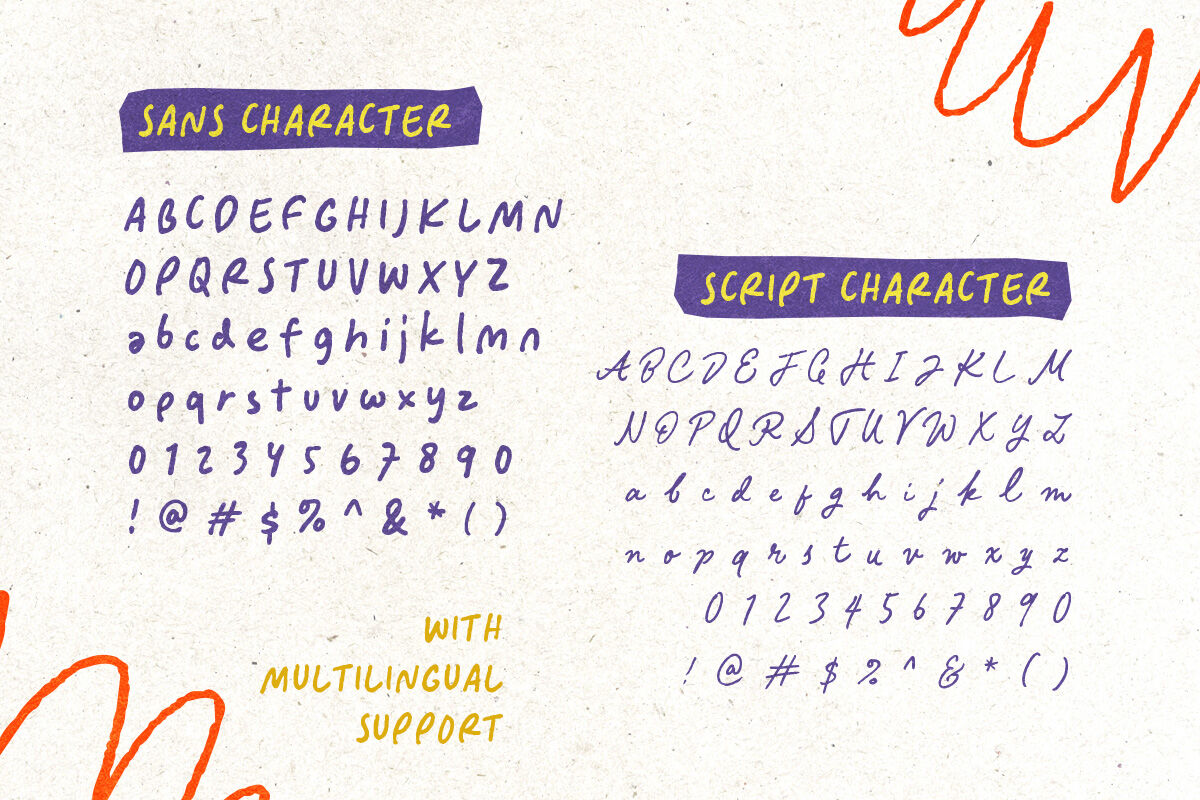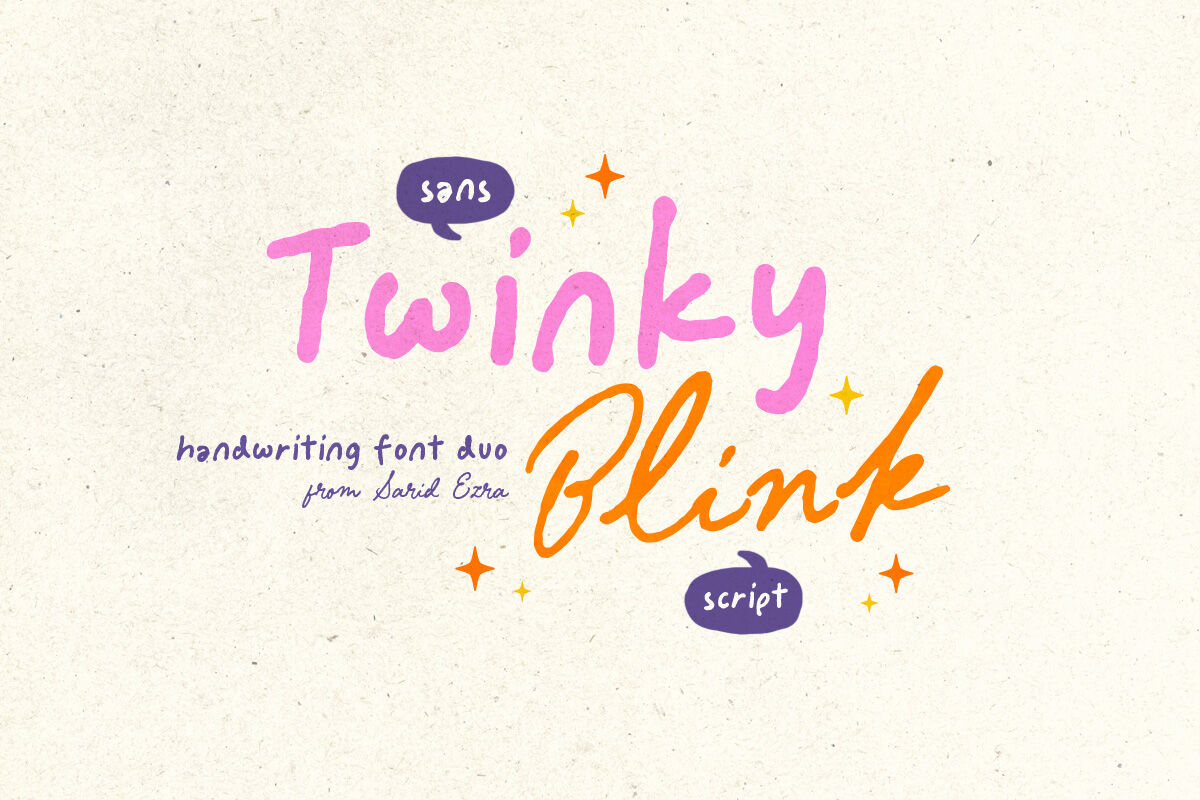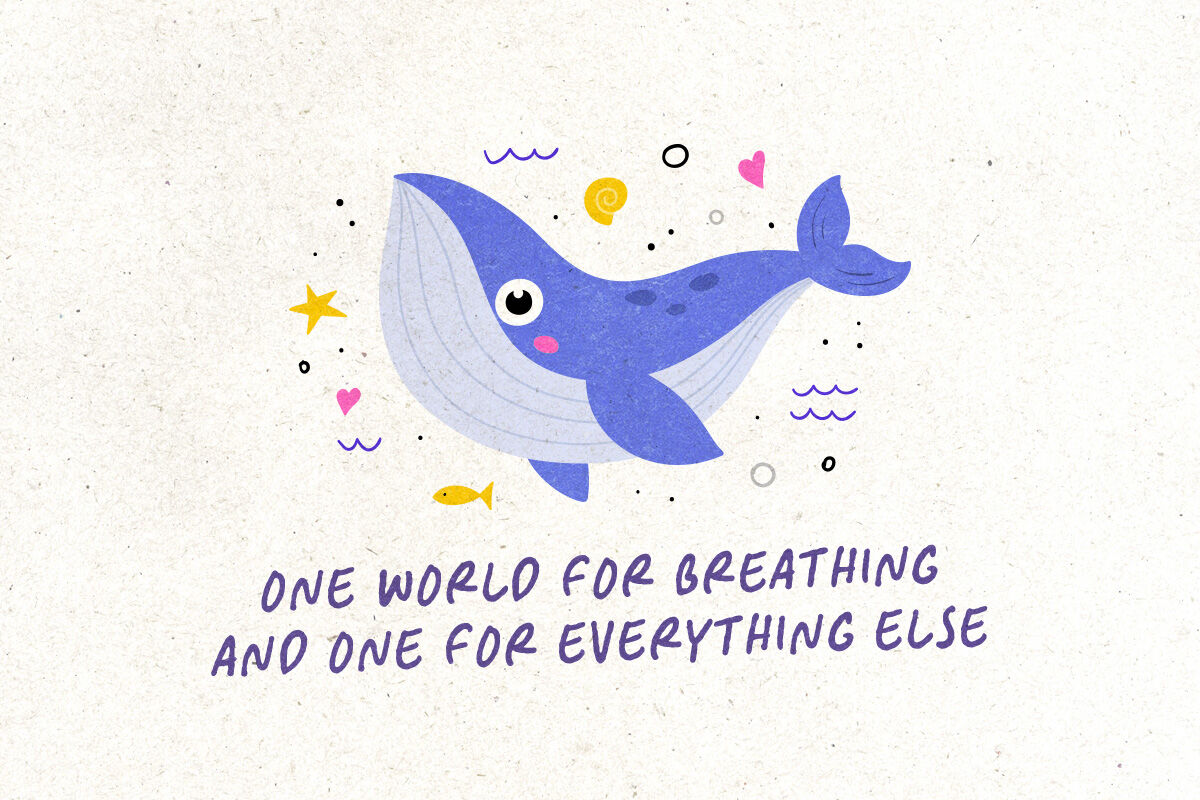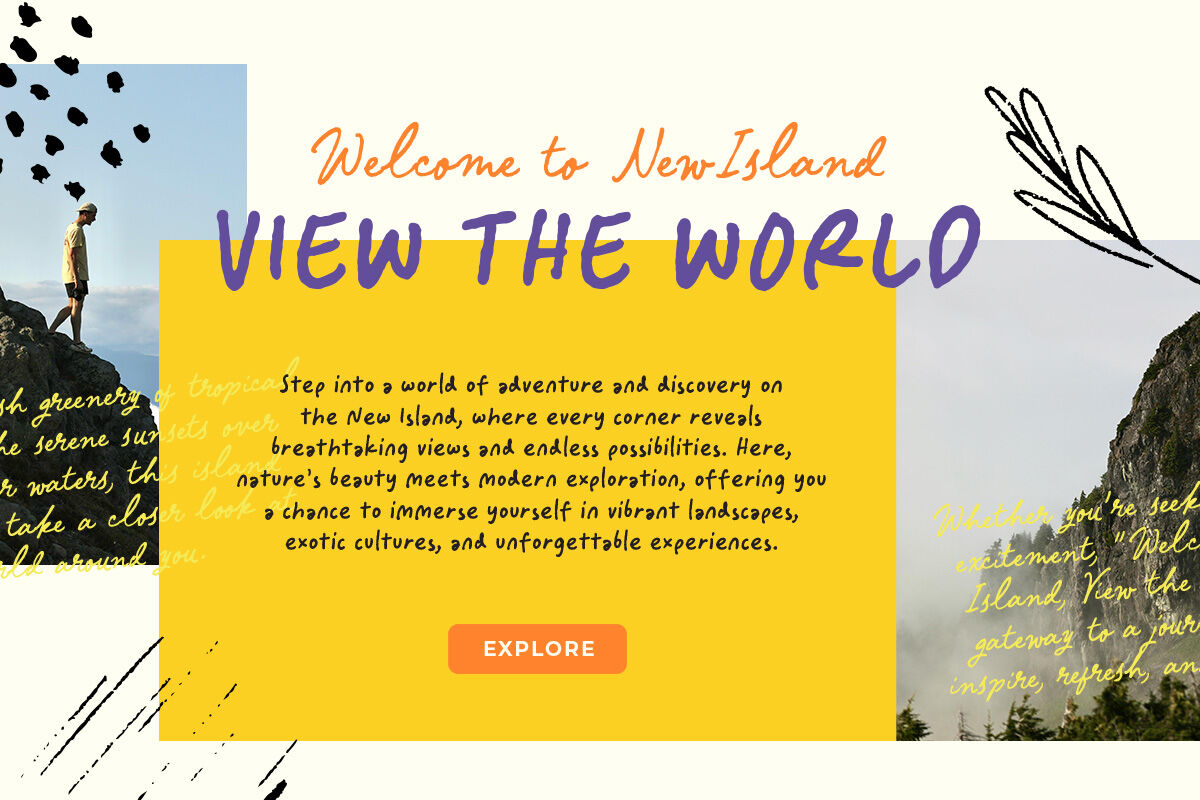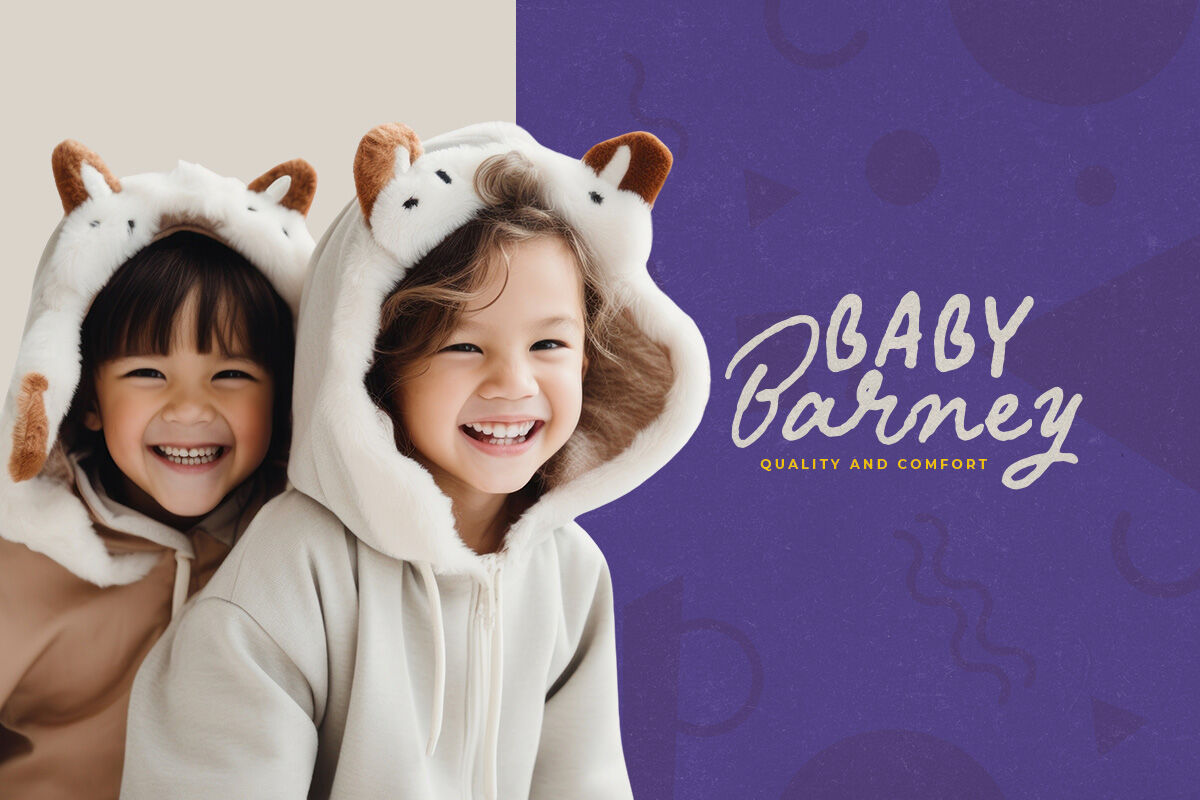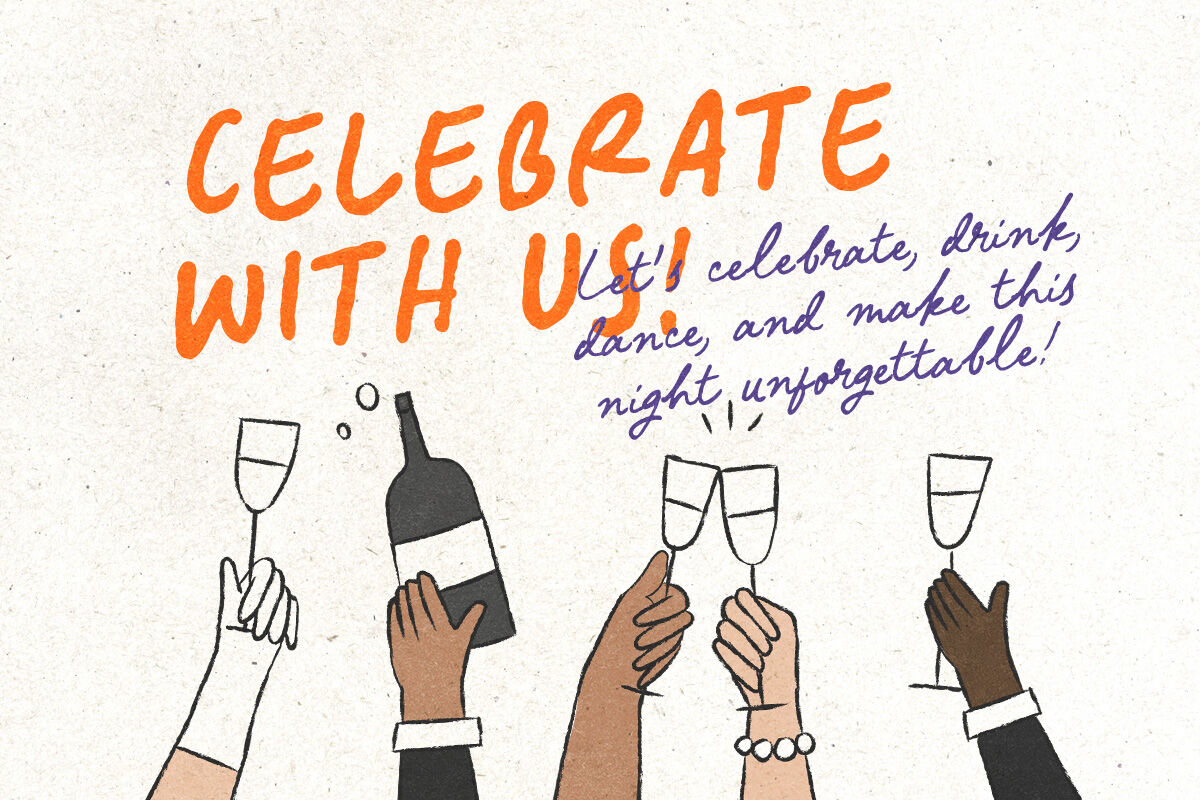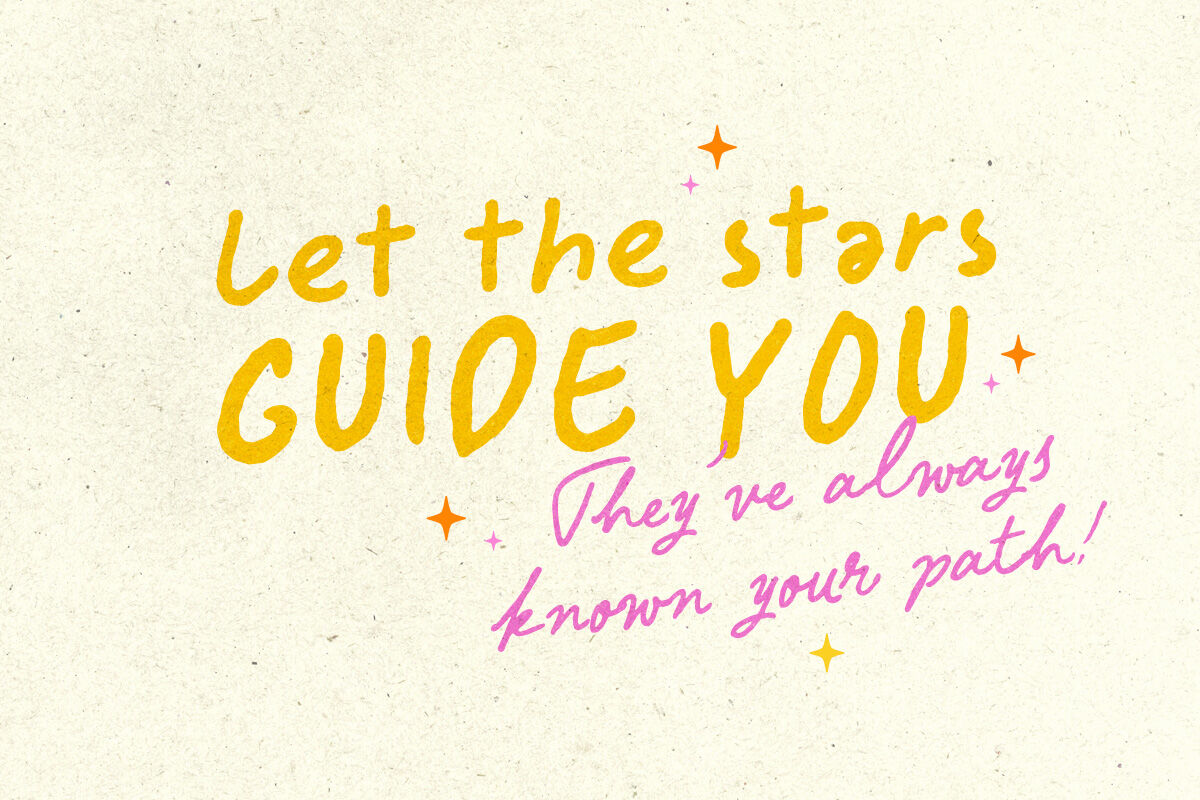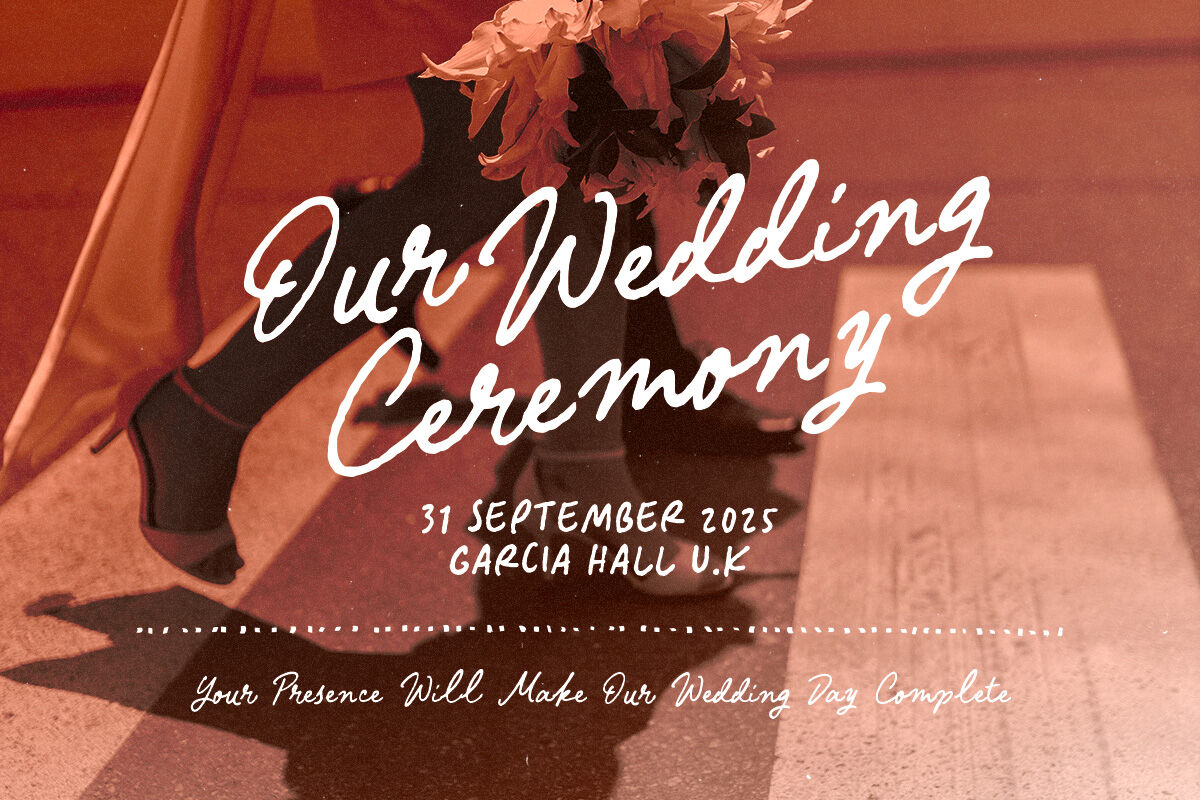
Twinky Blink - Cute Font Duo
Twinky Blink is a package of two handwritten fonts including Sans and Script that will compliment each other. You can use this font for any occasions such as a branding, wedding, etc. With handmade feels, this font is suitable for quote. This font also support multilingual.
Twinky Blink Sans
Twinky Blink Script